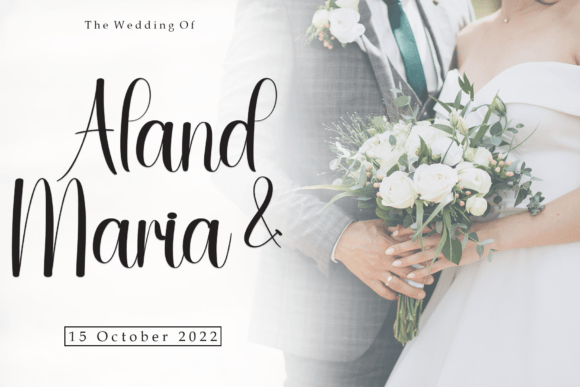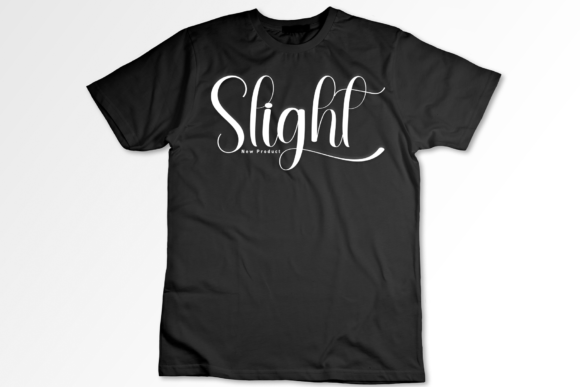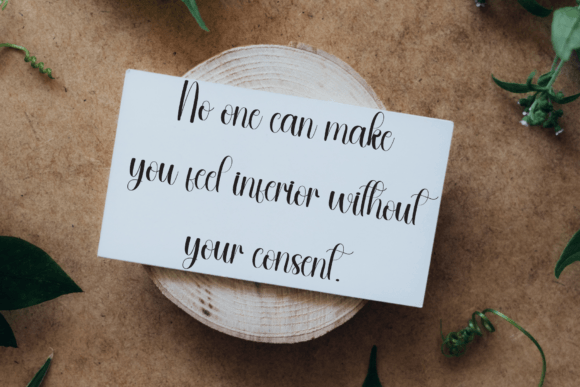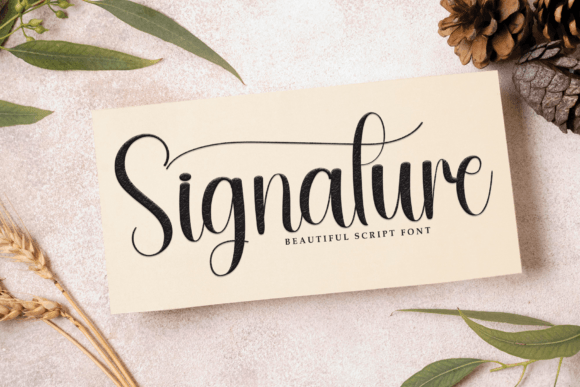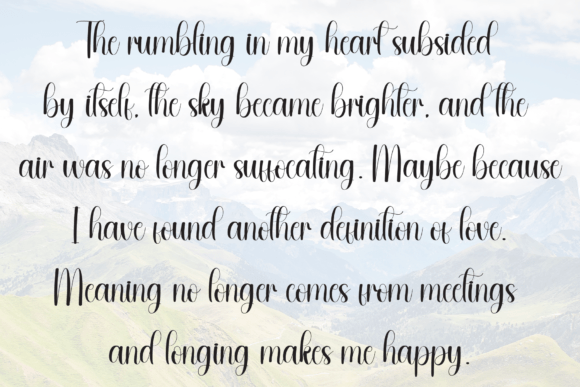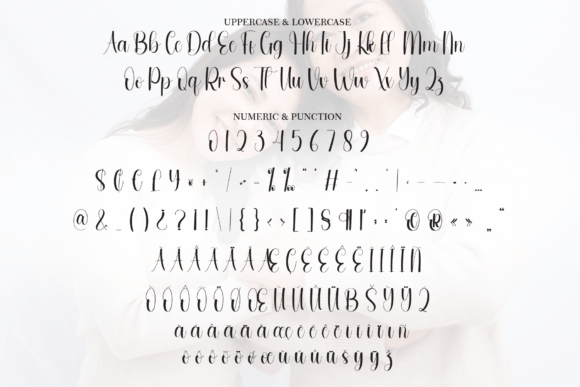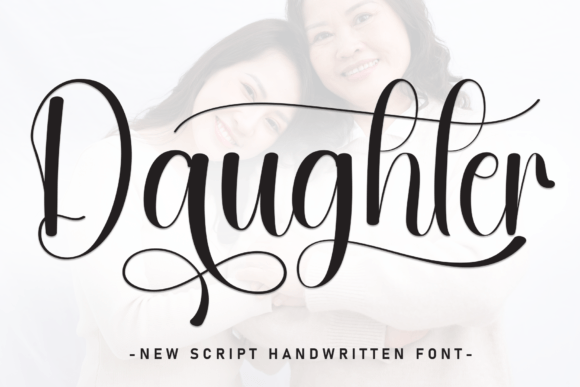
Introducing Daughter Font: Elegance and Charm in Every Stroke
In the world of typography, few fonts manage to capture the essence of elegance and charm as effortlessly as the Daughter font. This captivating Script & Handwritten font is designed to bring a touch of sophistication and grace to any design project. With its fluid strokes and delicate curves, Daughter font is perfect for adding a personal touch to invitations, branding, and a myriad of other creative endeavors that call for a touch of femininity.
The Essence of Daughter Font
Daughter font is more than just a typeface; it’s an expression of style and refinement. Its fluid strokes flow with a grace that is both mesmerizing and elegant. Each letter is crafted with meticulous attention to detail, ensuring that the font exudes a sense of luxury and sophistication. Whether you’re working on a wedding invitation, a brand logo, or a packaging design, Daughter font is sure to elevate your project to new heights of elegance.
One of the standout features of the Daughter font is its versatility. This font isn’t just limited to formal or traditional designs; it can seamlessly blend into a variety of creative projects. From stationery and greeting cards to website headers and social media graphics, Daughter font can add a unique and personal touch that sets your design apart. Its adaptability makes it a valuable asset for designers who are looking to infuse their work with a bit of charm and personality.
Crafting with Daughter Font
For crafters and DIY enthusiasts, Daughter font opens up a world of creative possibilities. Imagine crafting personalized gifts, such as customized mugs, candles, or embroidered clothes, with a font that speaks of love and elegance. The delicate and flowing nature of Daughter font makes it perfect for creating heartfelt and visually appealing projects. Whether you’re making something for yourself or as a gift, this font adds that extra special touch that makes the item truly unique.
Technical Excellence
Aside from its aesthetic appeal, Daughter font is also designed with technical excellence in mind. It is optimized for clear readability across various sizes and resolutions, ensuring that your designs look impeccable whether they’re viewed on a screen or printed on paper. This technical proficiency makes it easier for designers to work with the font, knowing that it will perform well across different mediums.
Why Choose Daughter Font?
There are several reasons why Daughter font stands out in the world of typography:
- Elegance and Charm: It brings an unmatched level of elegance and charm to any design.
- Versatility: Suitable for a wide range of projects, from formal to casual.
- Personal Touch: Adds a personal and feminine touch that can make your designs more engaging.
- Technical Quality: Optimized for clear and crisp appearance across different mediums.
Using Daughter Font in Your Designs
Incorporating Daughter font into your designs is straightforward. Here are a few tips to get you started:
- Pairing: Experiment with font pairings to complement the elegance of Daughter font. It works well with both serif and sans-serif fonts.
- Colors: While Daughter font looks stunning in classic black and white, don’t be afraid to experiment with colors that match your brand or design theme.
- Size: Play with different sizes to emphasize certain words or phrases, adding depth and interest to your design.
Daughter font is a beautiful addition to the world of typography, offering designers and crafters a tool to infuse their projects with elegance, charm, and a personal touch. Its fluid strokes, delicate curves, and versatile nature make it perfect for a wide range of applications. Whether you’re a professional designer looking to elevate your branding and client projects or a crafter seeking to add a touch of sophistication to your handmade items, Daughter font is sure to exceed your expectations.
Embrace the elegance and let your creativity shine with Daughter font. Explore its possibilities and discover how it can transform your designs into timeless pieces of art.